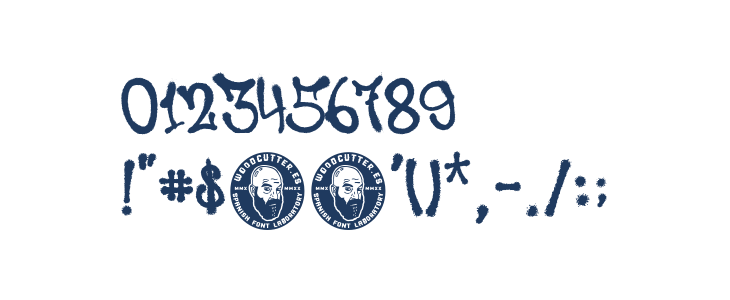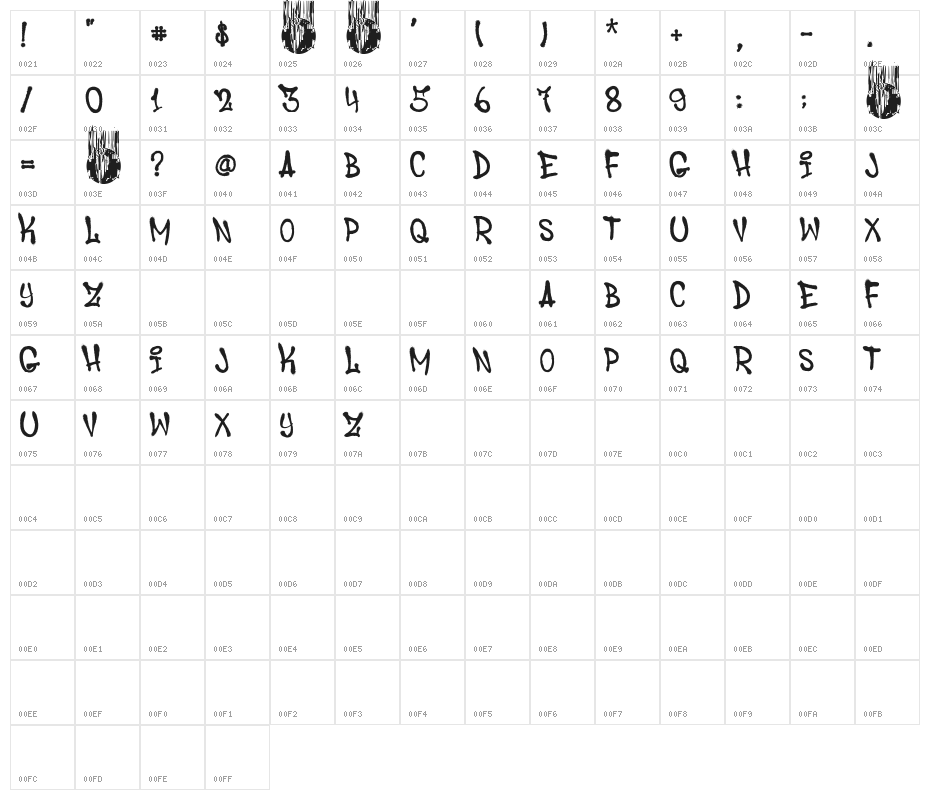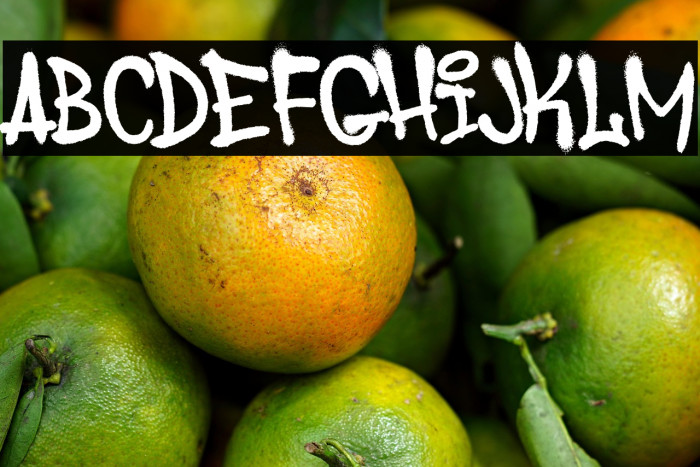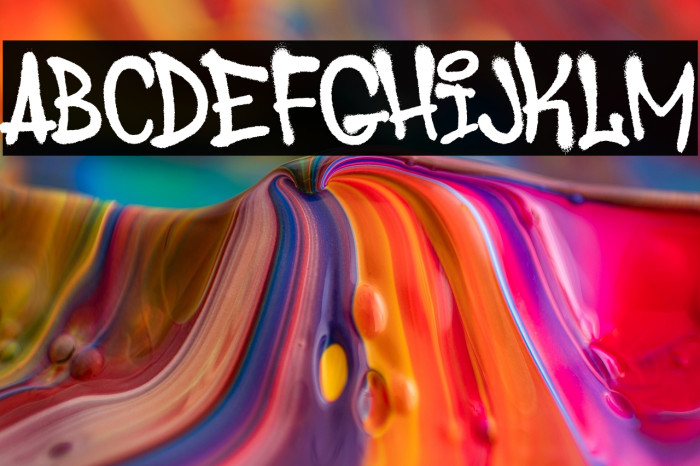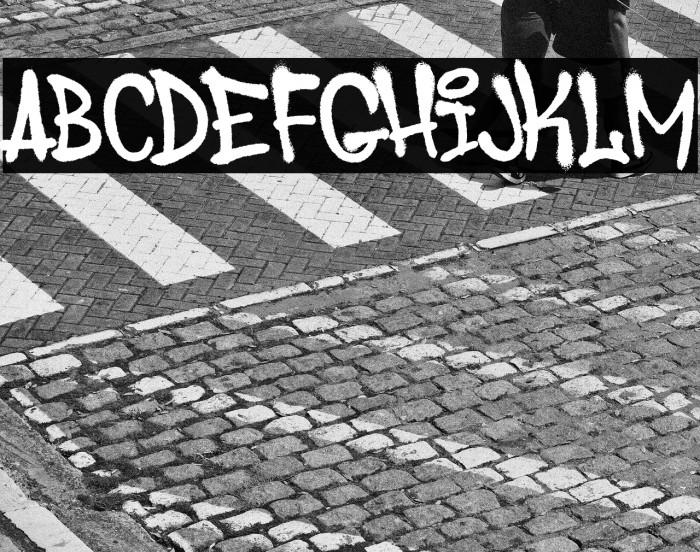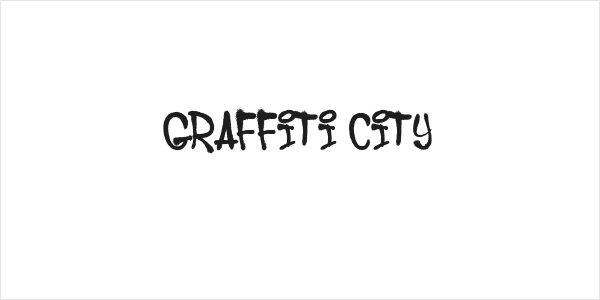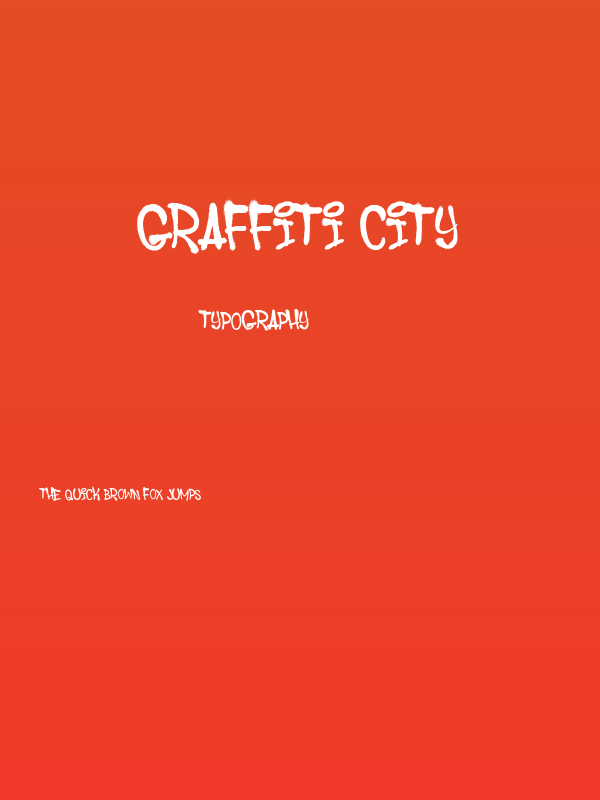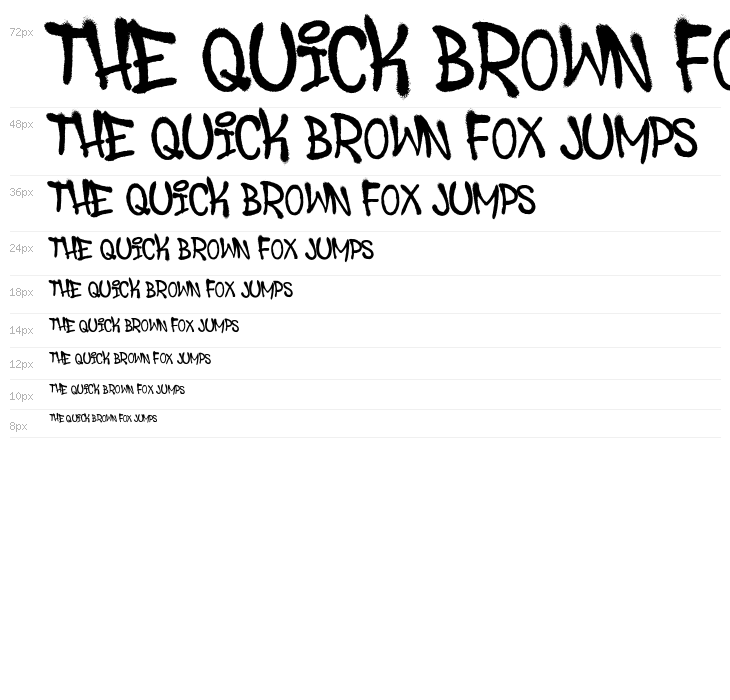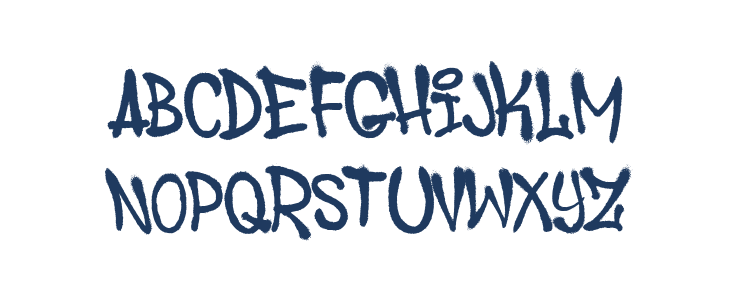
Graffiti City Font
Graffiti City Description
This font exudes a bold and urban aesthetic, reminiscent of graffiti art found in cityscapes. The letters are characterized by their thick, uneven strokes and a slightly rough texture, giving them a hand-painted appearance. The uppercase and lowercase letters maintain a consistent style, with exaggerated curves and angles that add to the dynamic feel. Numbers and special characters follow the same design principles, ensuring a cohesive look across all elements. The font's energetic and rebellious vibe makes it ideal for projects that aim to capture a street-smart or edgy atmosphere.
Overall StyleUrban, Edgy, Dynamic
Proposed ProjectsPerfect for street art projects, urban-themed posters, music album covers, and edgy branding materials.